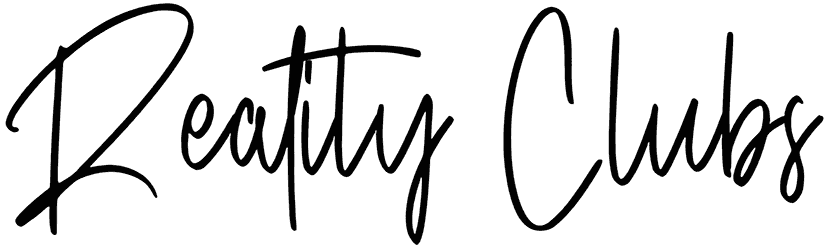
Reality Clubs Font
Adorn your design with a cool and artistic visual and mesmerize your observers. This handwritten font reflects an urban and realistic vibe, which can make your words more engaging. With A-Z characters, the Reality Clubs font will serve you as a perfect selection for countless designs like a biography movie poster.